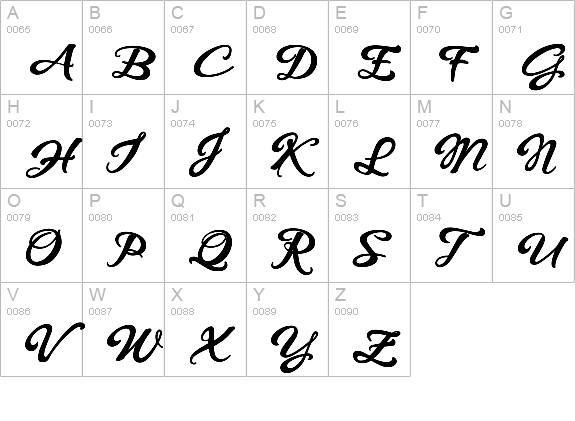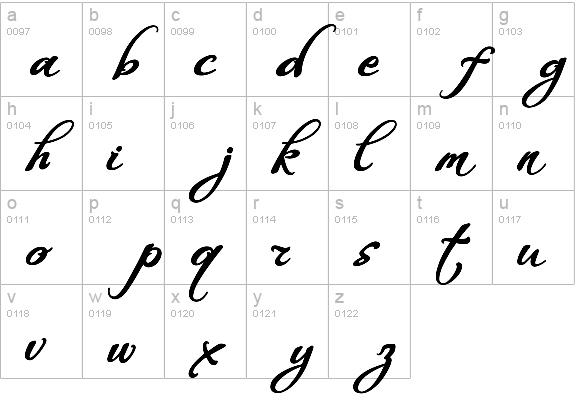
WHISPERS CALLIGRAPHY_DEMO_essential_BOLD Font Details
WHISPERS CALLIGRAPHY_DEMO_essential_BOLD is an exquisite and captivating font that will add a touch of elegance and sophistication to any design project. With its beautifully crafted calligraphic strokes and bold lines, this font exudes confidence and style. This font is perfect for creating eye-catching logos, branding materials, wedding invitations, and more. Its unique and intricate design will make your designs stand out from the crowd and leave a lasting impression on your audience. One of the best features of WHISPERS CALLIGRAPHY_DEMO_essential_BOLD is that it is freely available to download at FontsMarket.com. This means that you can easily access and use this font in your projects without any hassle or cost. Whether you are a professional designer or a hobbyist, this font provides you with the opportunity to enhance your creations with a high-quality and visually stunning typeface. Furthermore, WHISPERS CALLIGRAPHY_DEMO_essential_BOLD is incredibly versatile. Its bold and striking appearance makes it suitable for a wide range of design styles, from modern and contemporary to vintage and classic. No matter the theme or aesthetic you are aiming for, this font will effortlessly complement and enhance your designs. The attention to detail and craftsmanship evident in WHISPERS CALLIGRAPHY_DEMO_essential_BOLD is truly remarkable. Each letter and character has been meticulously designed to ensure a seamless and harmonious flow. The result is a font that is not only visually appealing but also legible and easy to read. Whether you are working on a personal or professional project, WHISPERS CALLIGRAPHY_DEMO_essential_BOLD is a must-have font in your collection. Its combination of elegance, boldness, and versatility will provide you with endless possibilities for creating stunning designs. So why wait? Download WHISPERS CALLIGRAPHY_DEMO_essential_BOLD for free at FontsMarket.com and let your creativity soar.